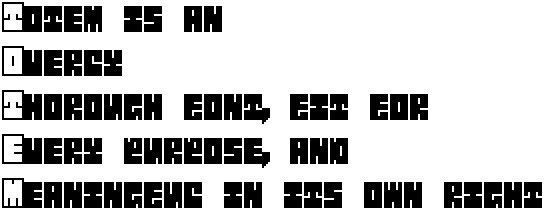
Update: added a "lower case" (it's really just the upper case inverted) and changed the punctuation slightly. Below is a sample acrostic to show both cases.